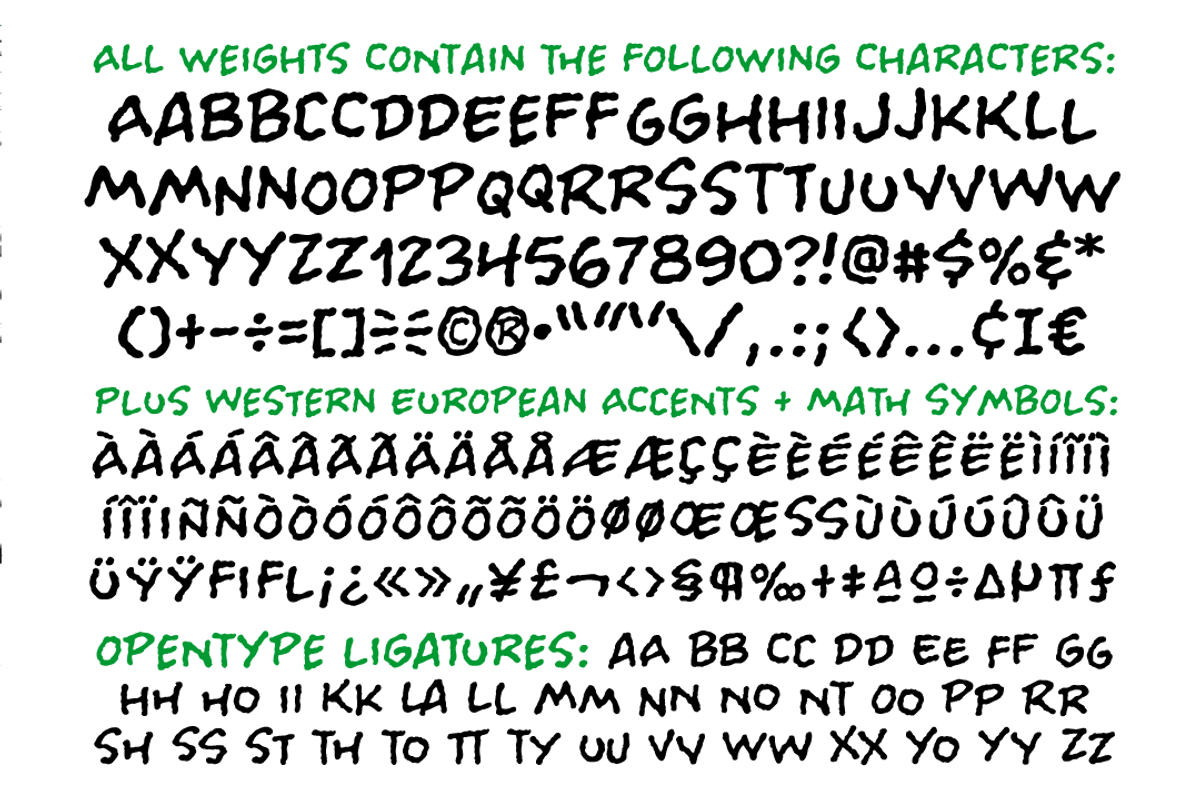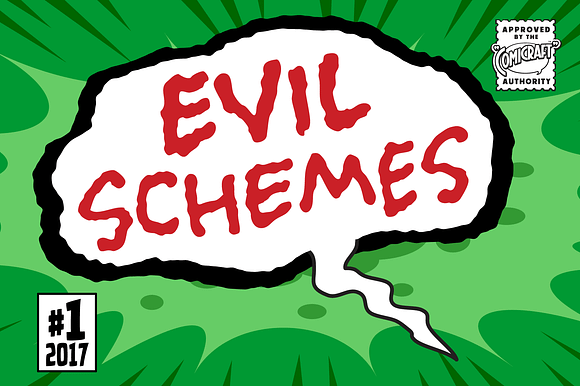
Evil Schemes
Big Brother is watching you and vile Supervillains are afoot! The cunning characters involved in this font have devised a convoluted Machiavellian plot for world domination that encompasses mind parasites, twitter, deadly viruses in the public water system and possibly a nuclear dirty bomb in a downtown Metropolitan area to which they've strapped your girlfriend and a digital clock rapidly counting down to zero! Will Good Triumph and Defeat Evil?! Stay tuned...
- Includes Western European international characters.
- Features Four fonts (Regular, Italic, Bold & Bold Italic) with upper and lowercase characters.
Evil Schemes by Comicraft Fonts fits naturally into Branding, posters, packaging, typography.